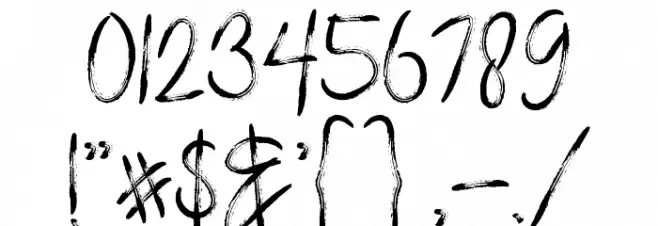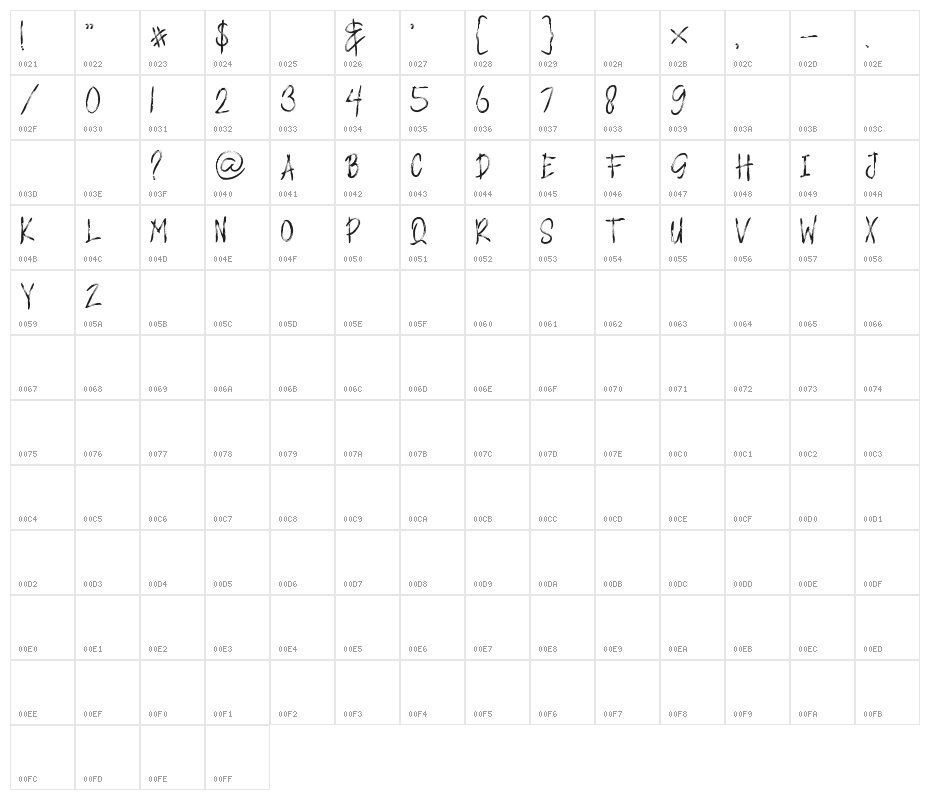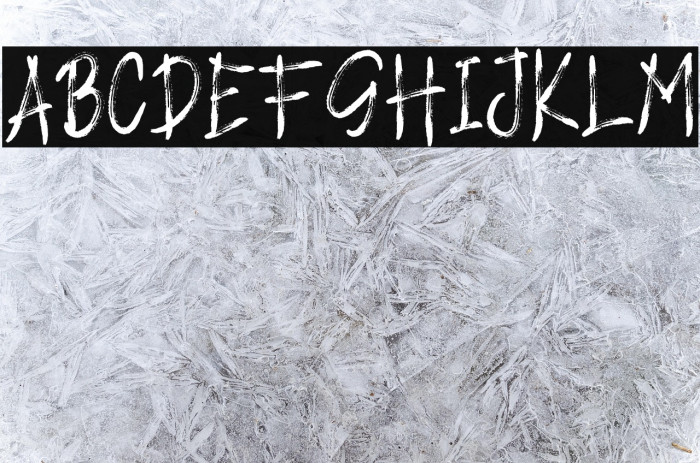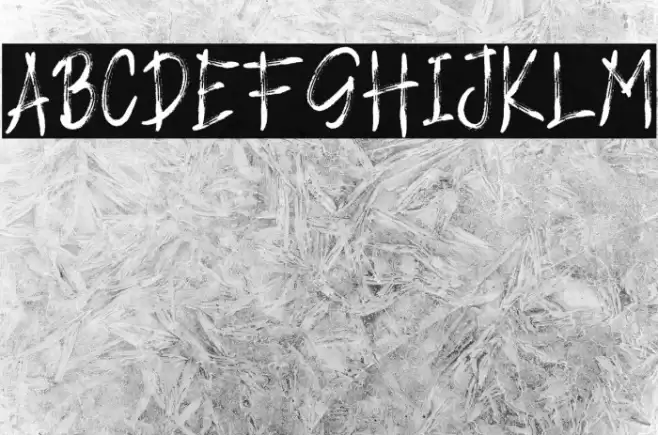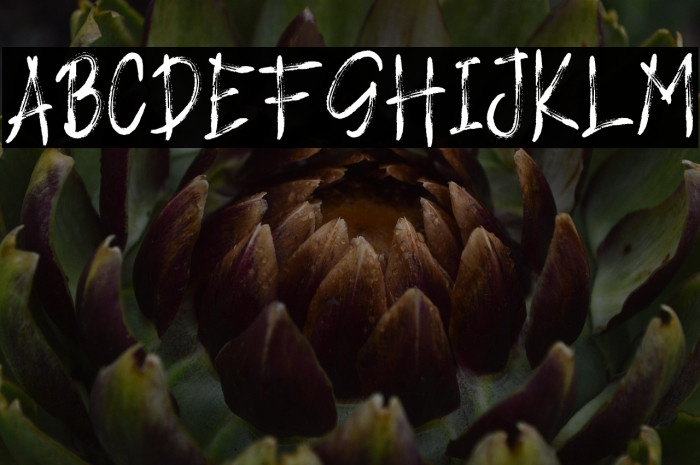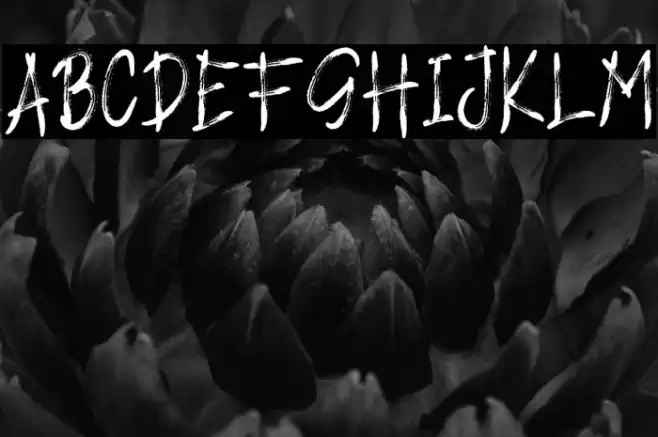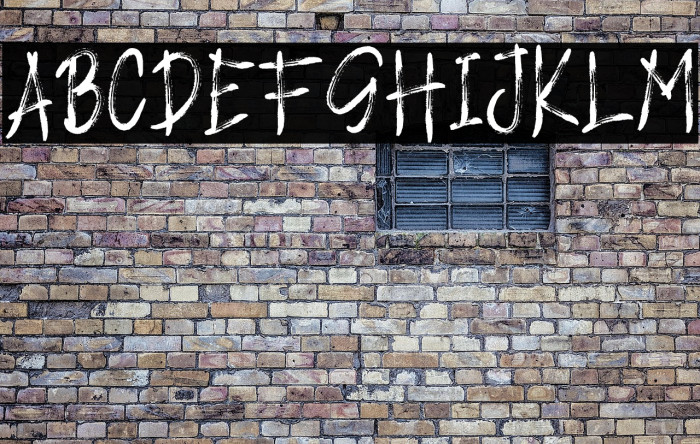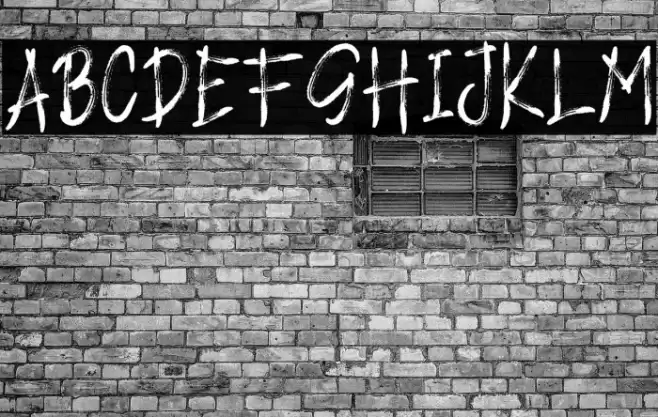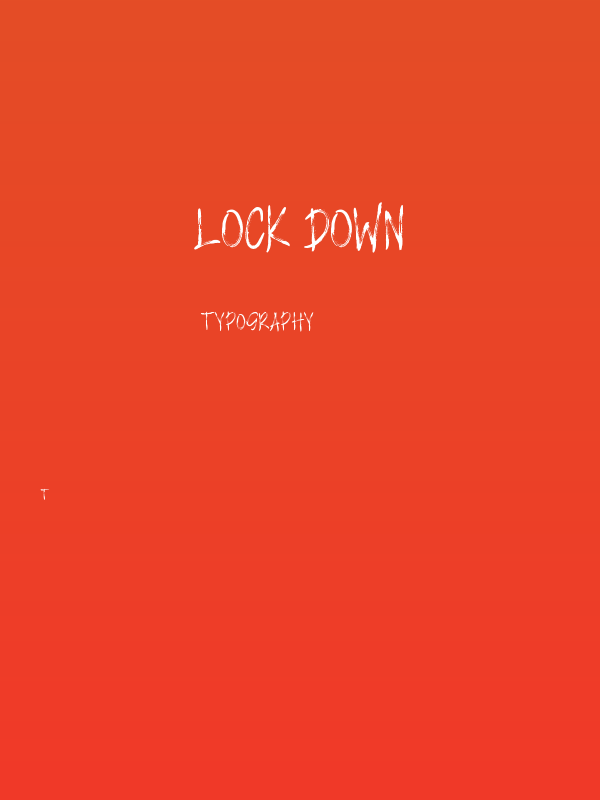
LOCK DOWN Font
LOCK DOWN Description
This font exhibits a bold, expressive style with a hand-drawn appearance, characterized by its rough, textured strokes and dynamic, energetic forms. The letters are irregular and slightly tilted, giving a sense of movement and spontaneity. The uppercase letters are particularly striking, with varying stroke widths that add to the font's dramatic flair. The numerals and special characters maintain this lively aesthetic, making the font suitable for creative and artistic projects. Its unique style captures attention and conveys a sense of individuality and creativity.
| Proposed Projects | Ideal for posters, album covers, artistic branding, and creative invitations. |